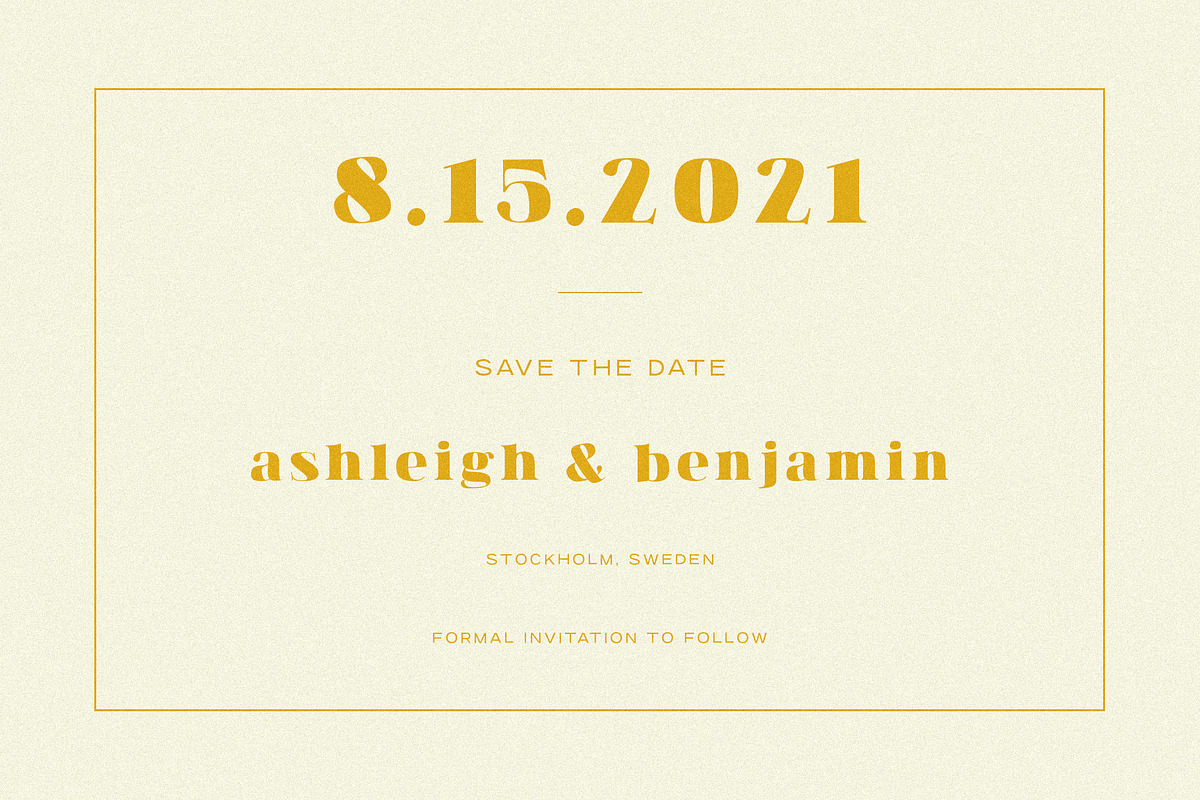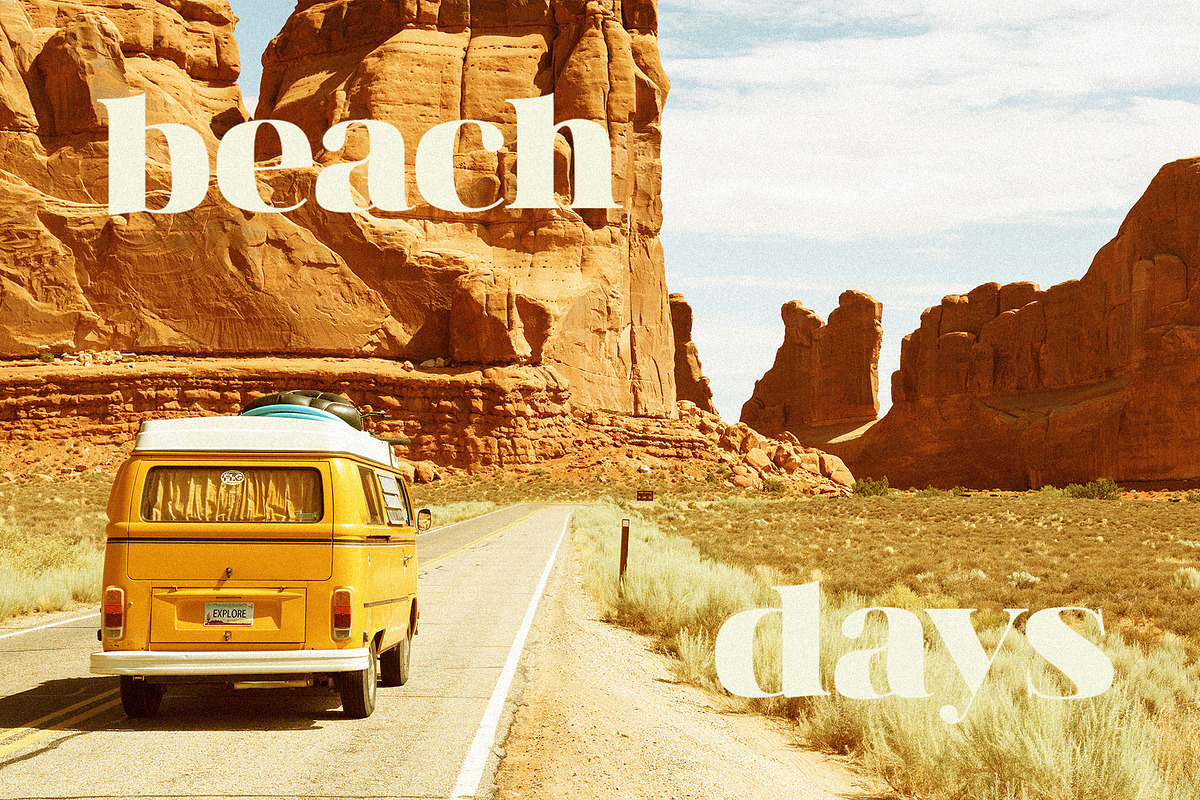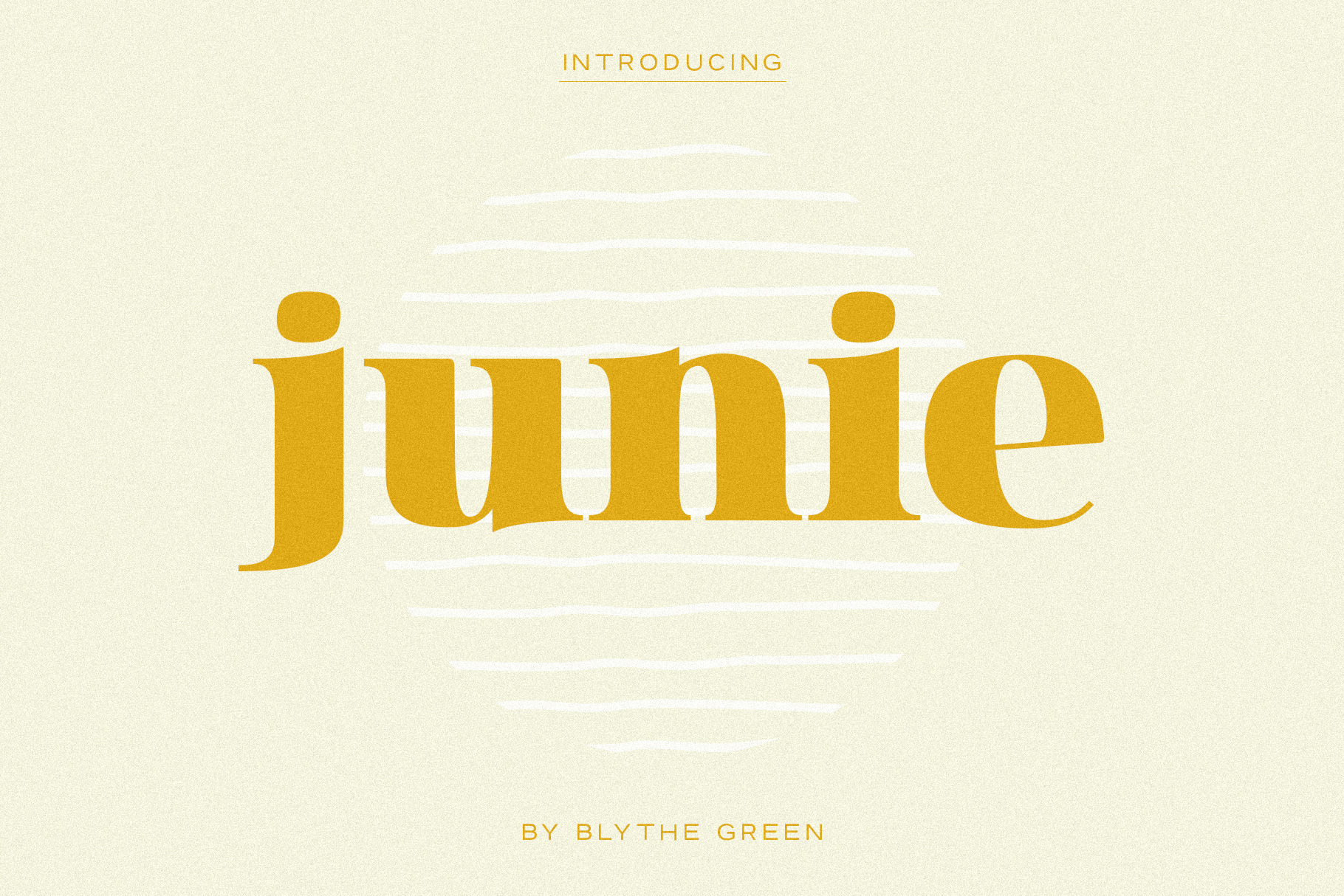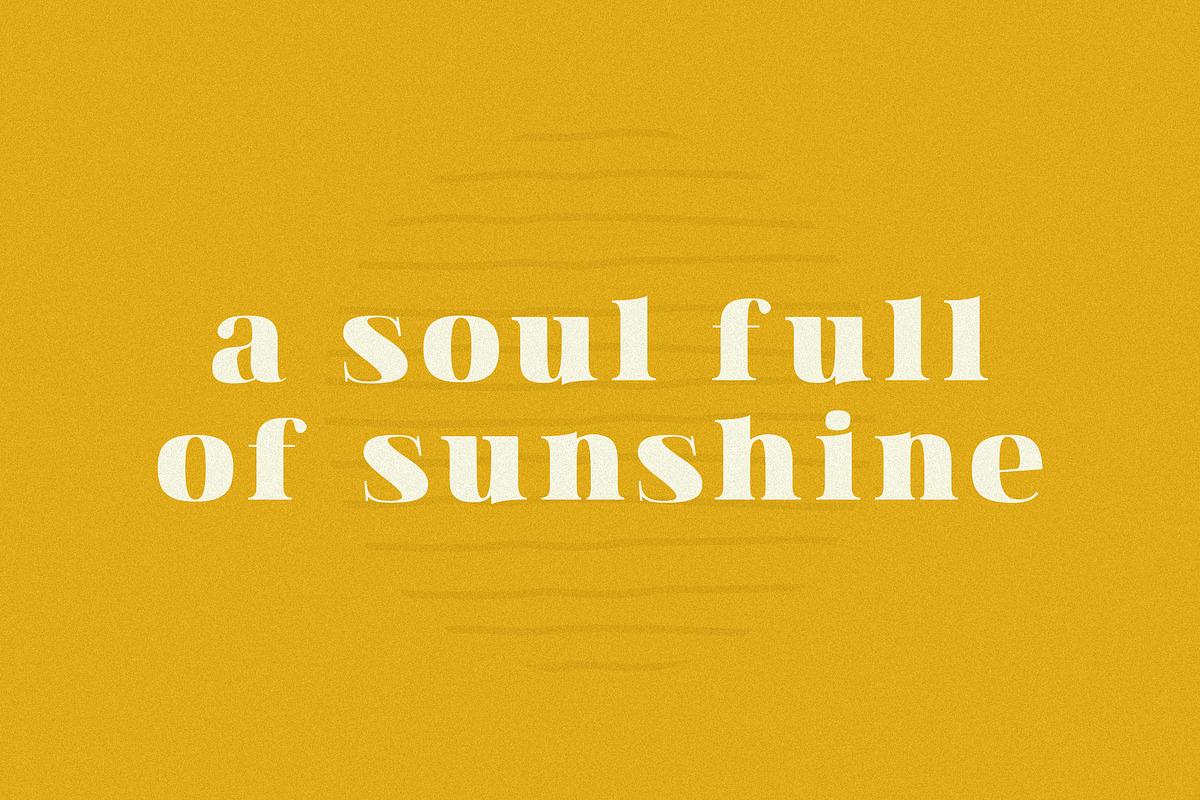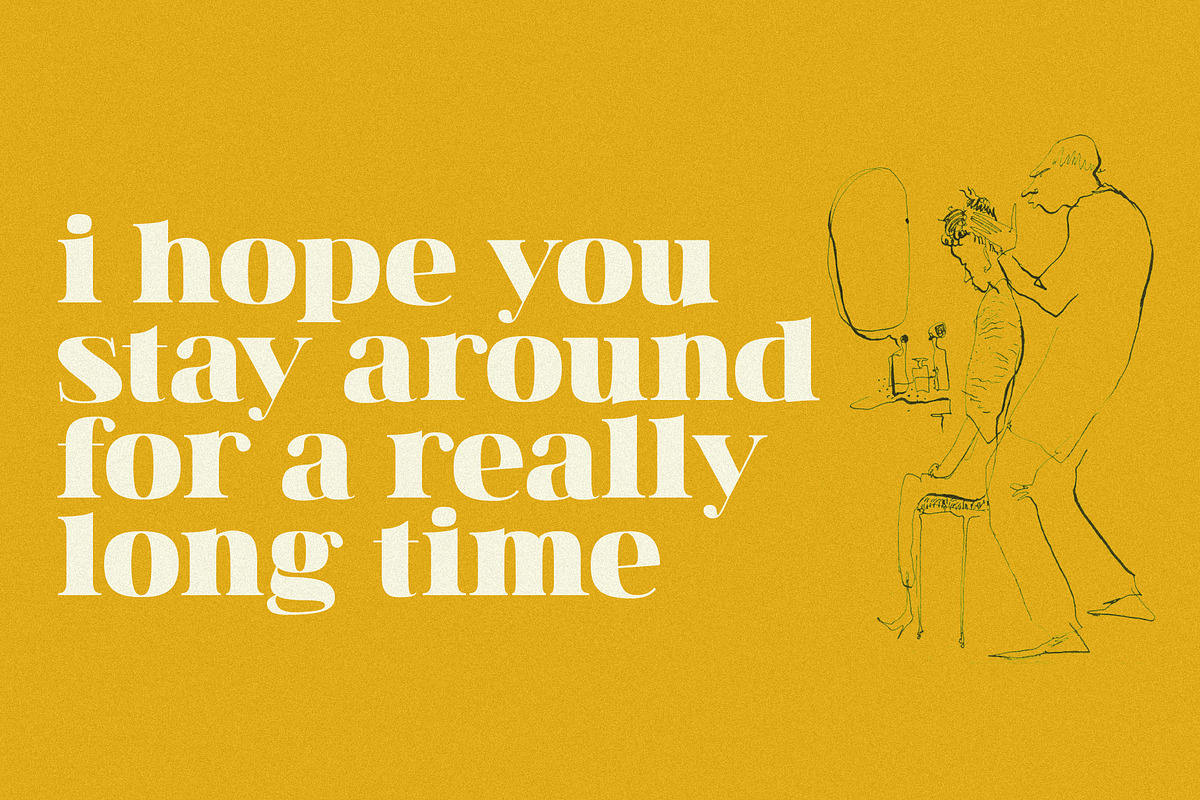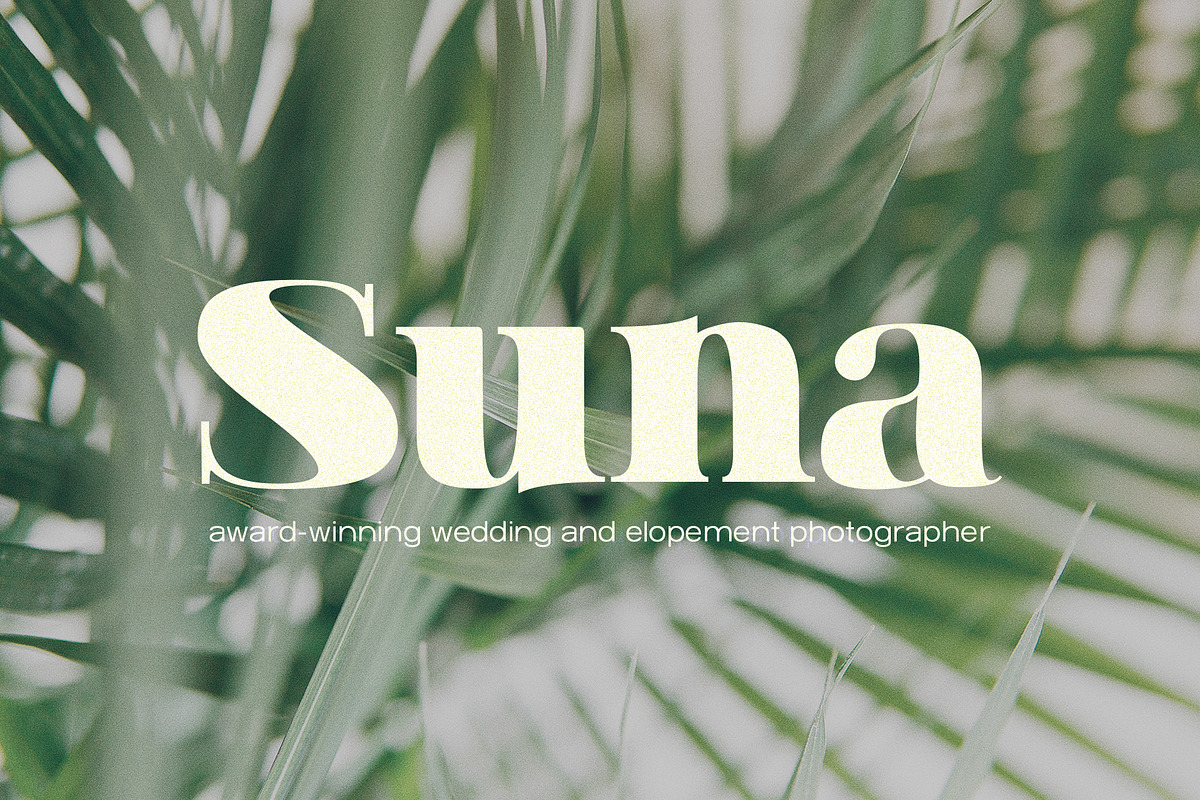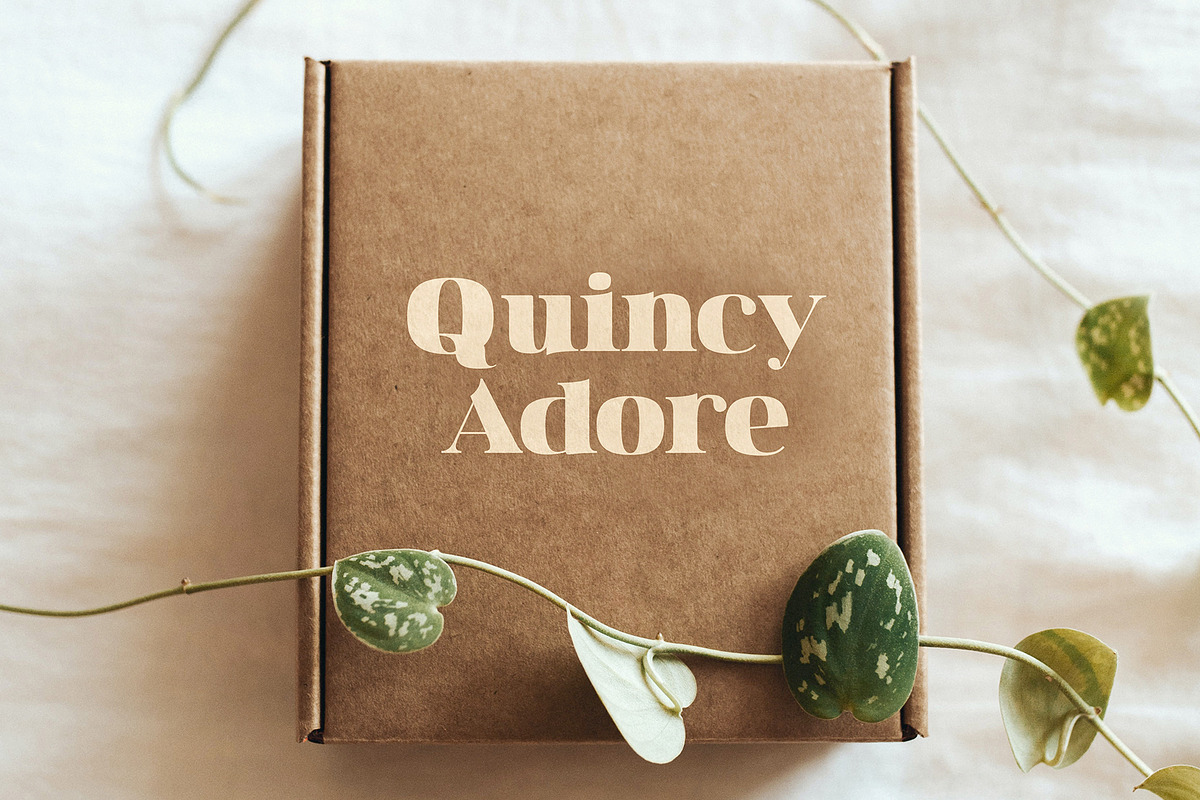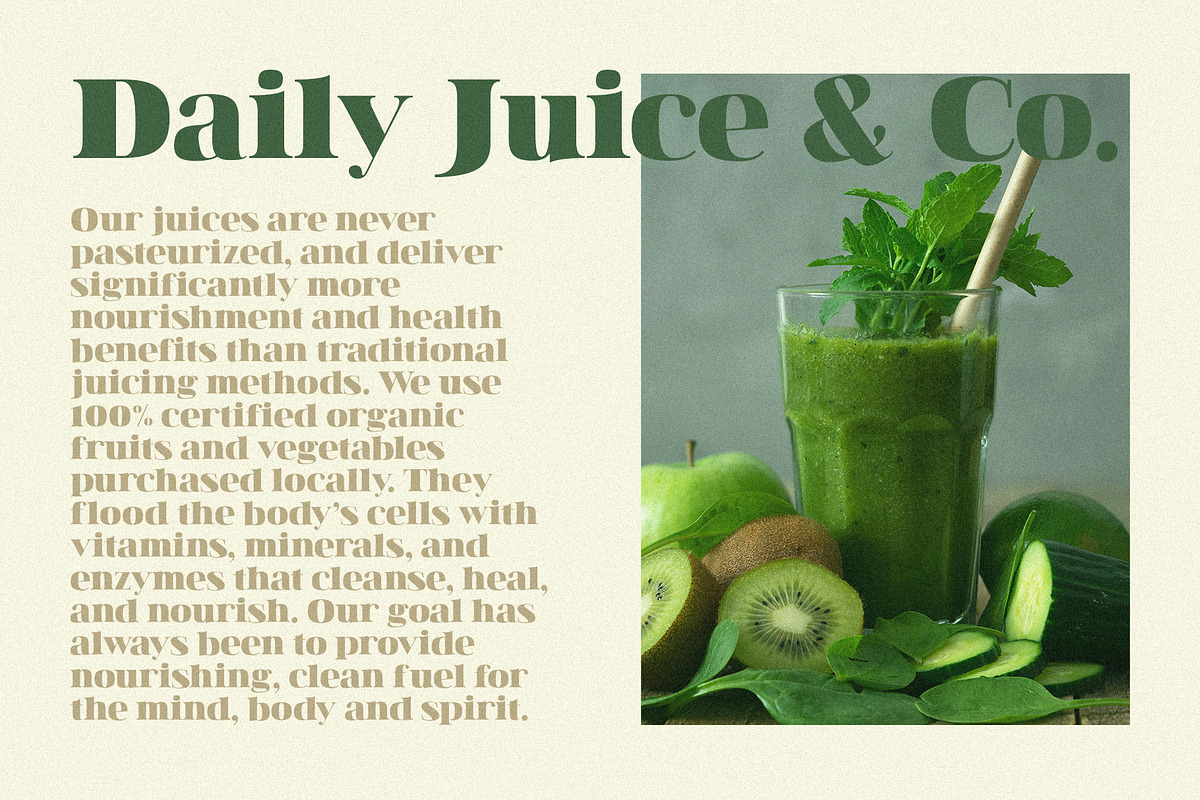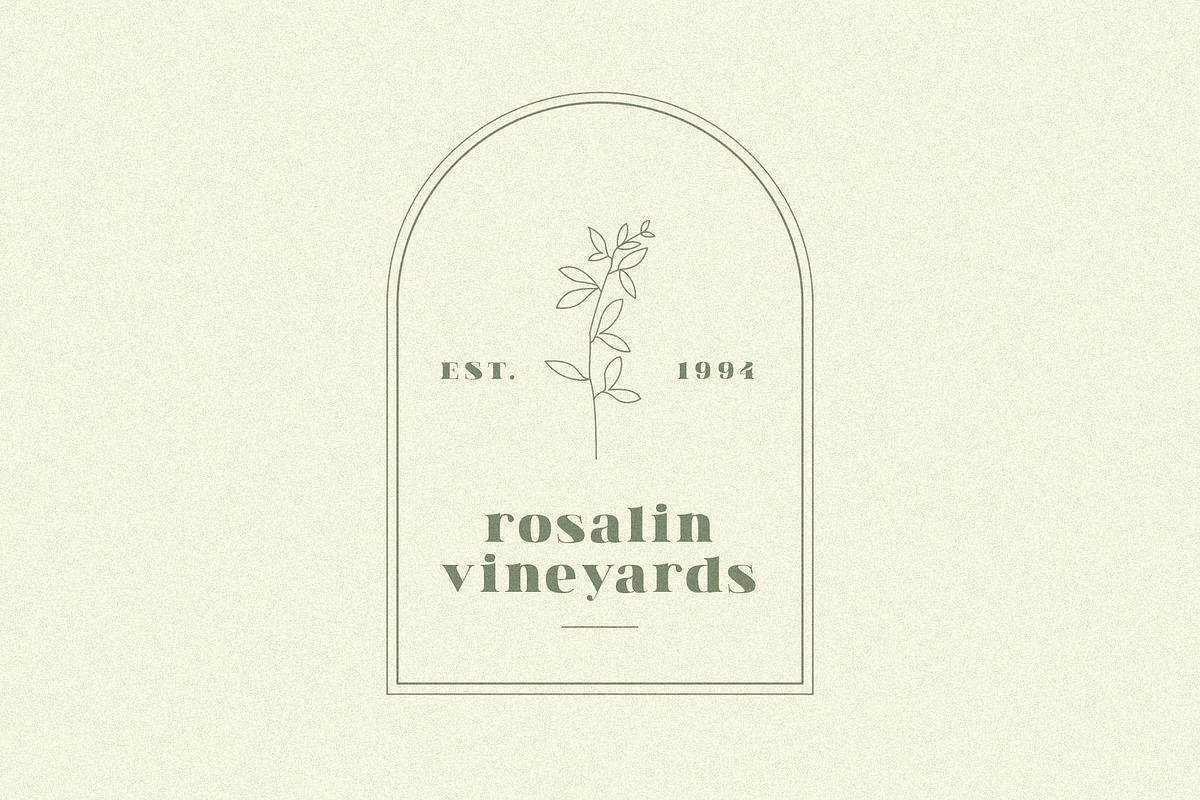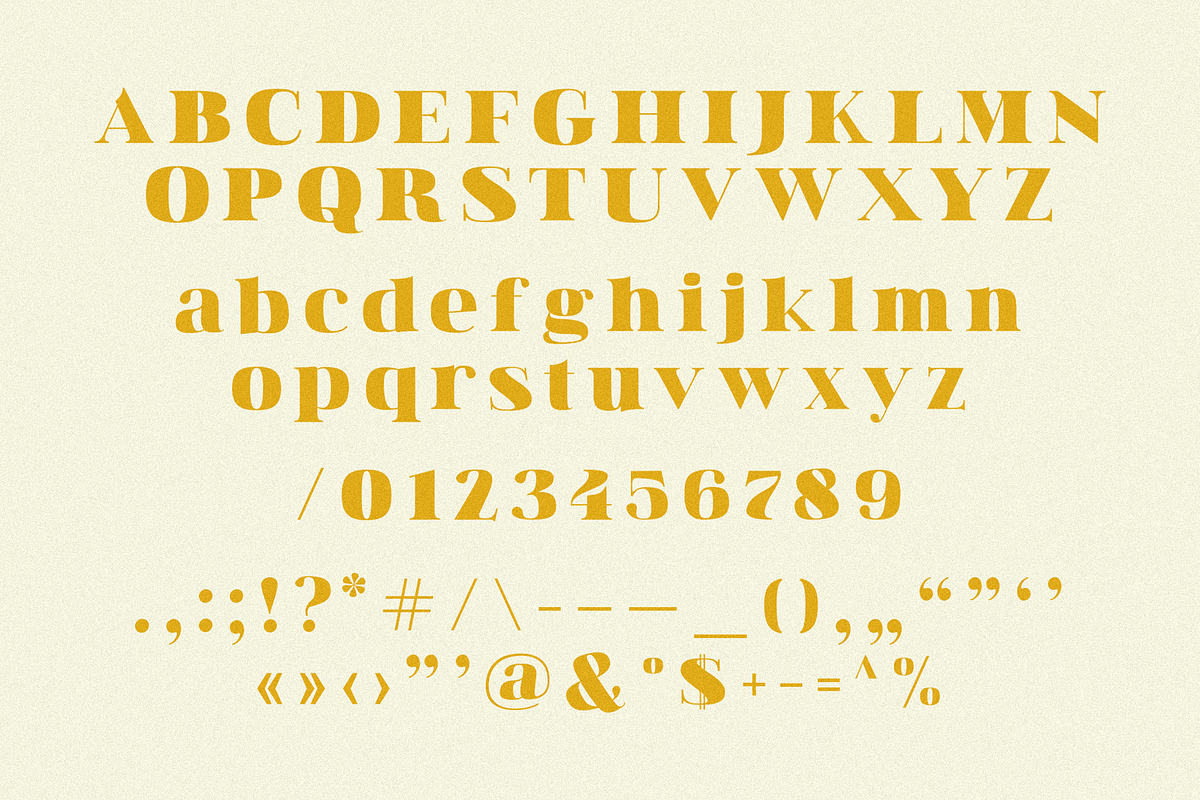
Junie | A High-Contrast Serif Font
Meet Junie! A high-contrast serif typeface perfect for quotes, logos. social media, branding, invitations, wedding stationery, and more.
- Junie serif typeface
- Uppercase + lowercase
- Numbers + punctuation